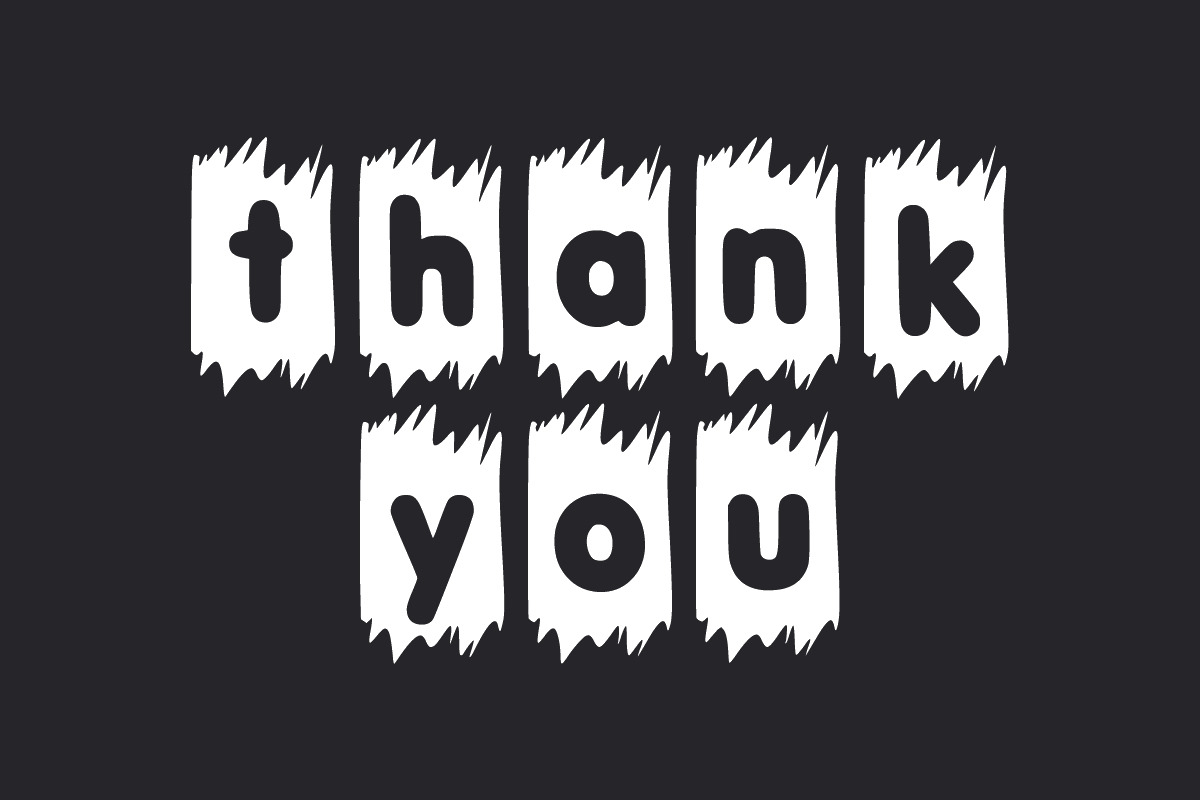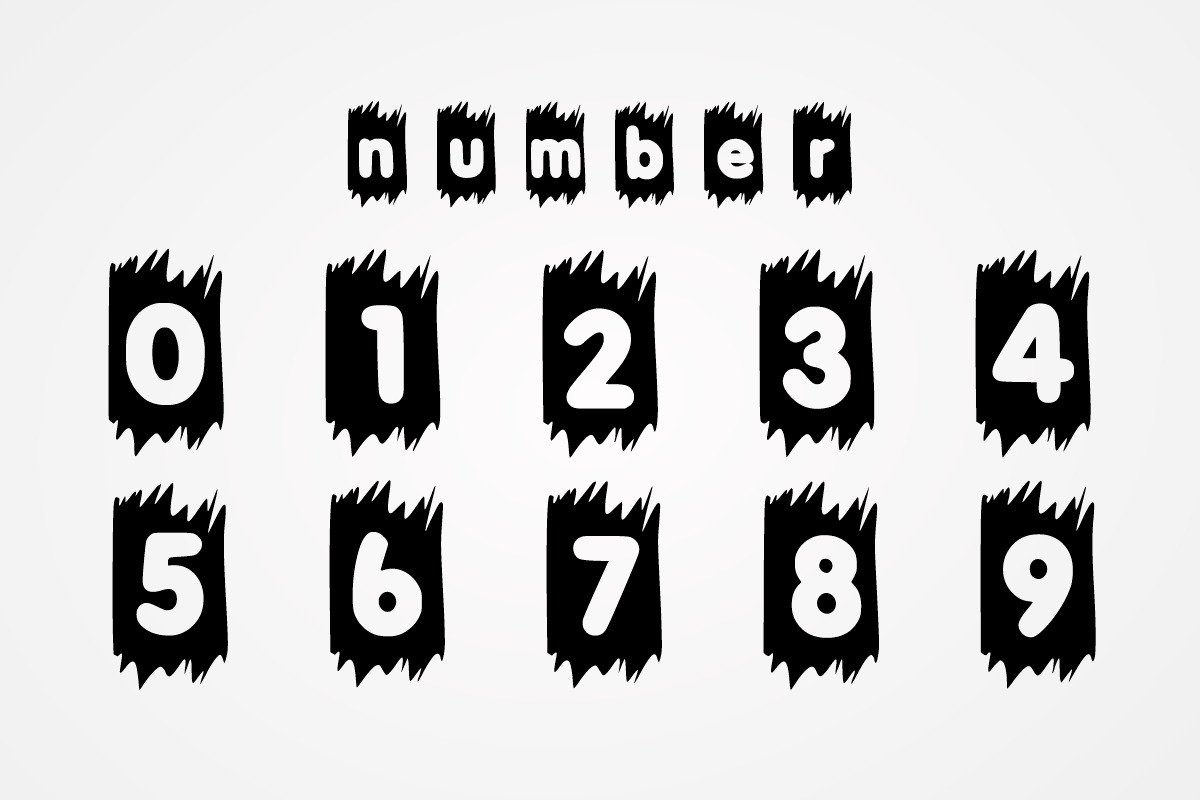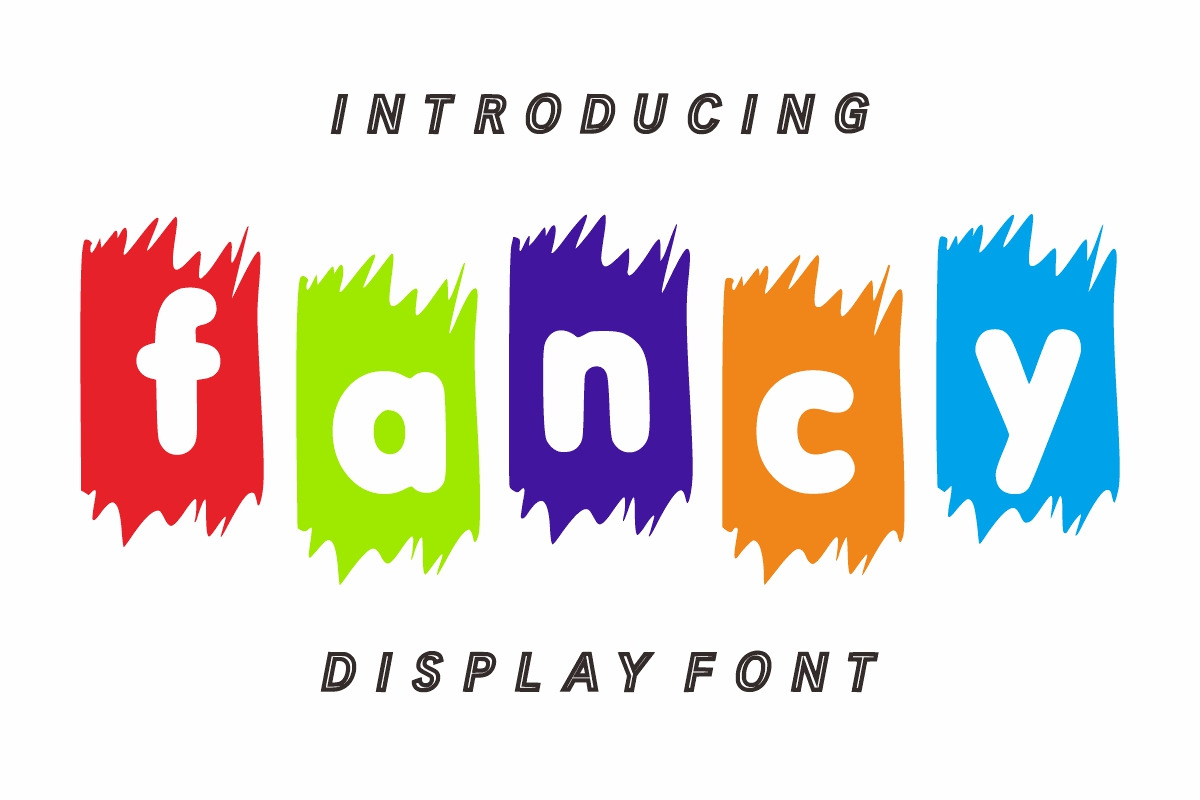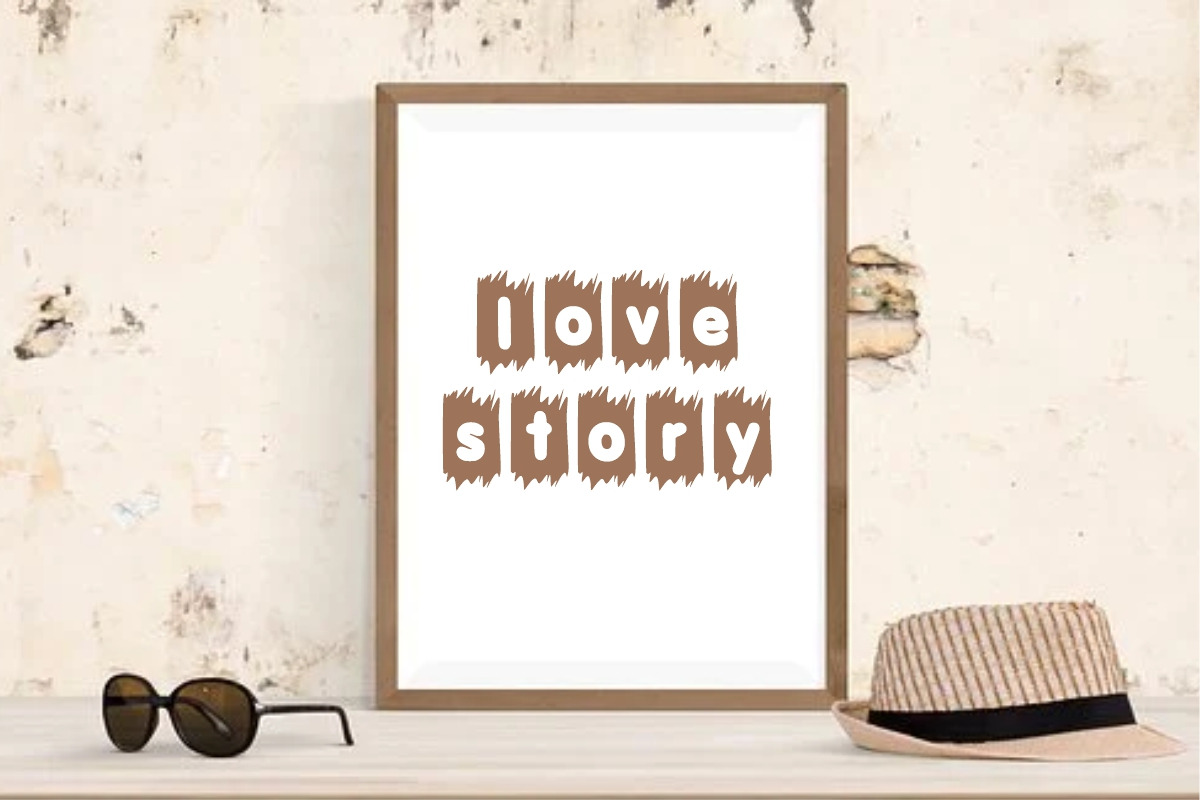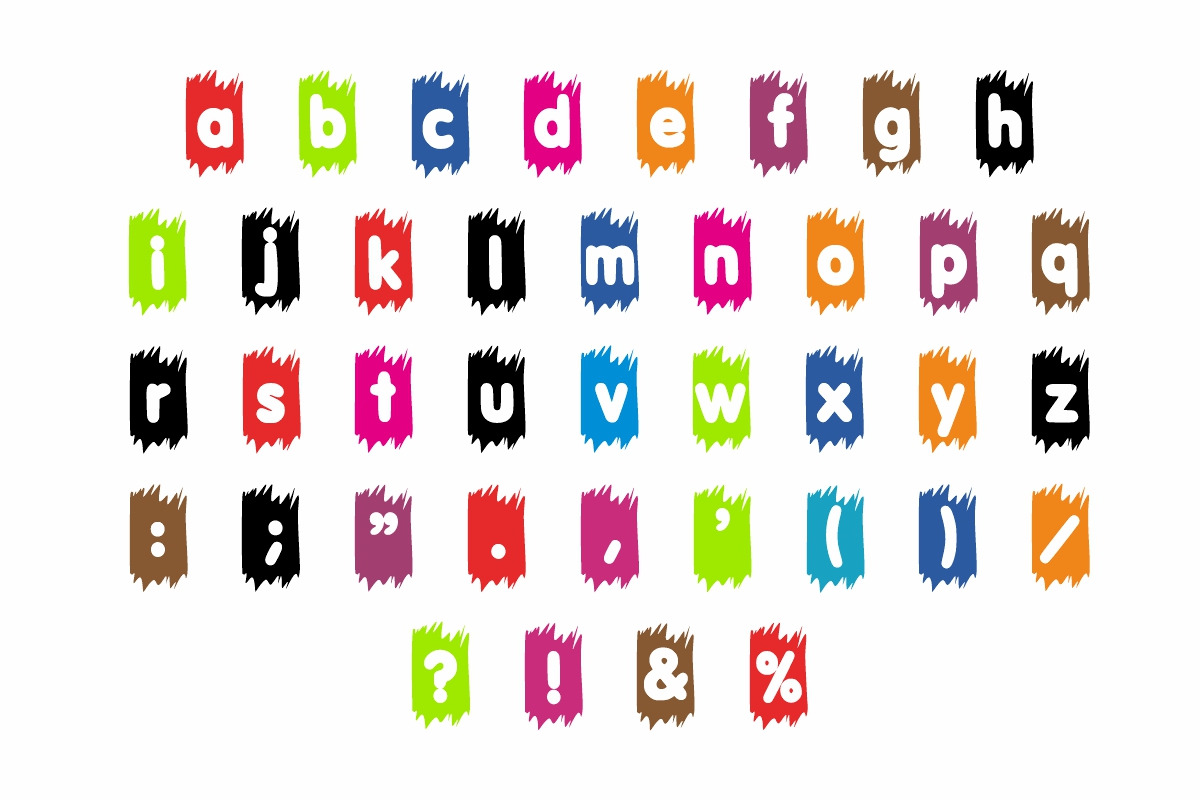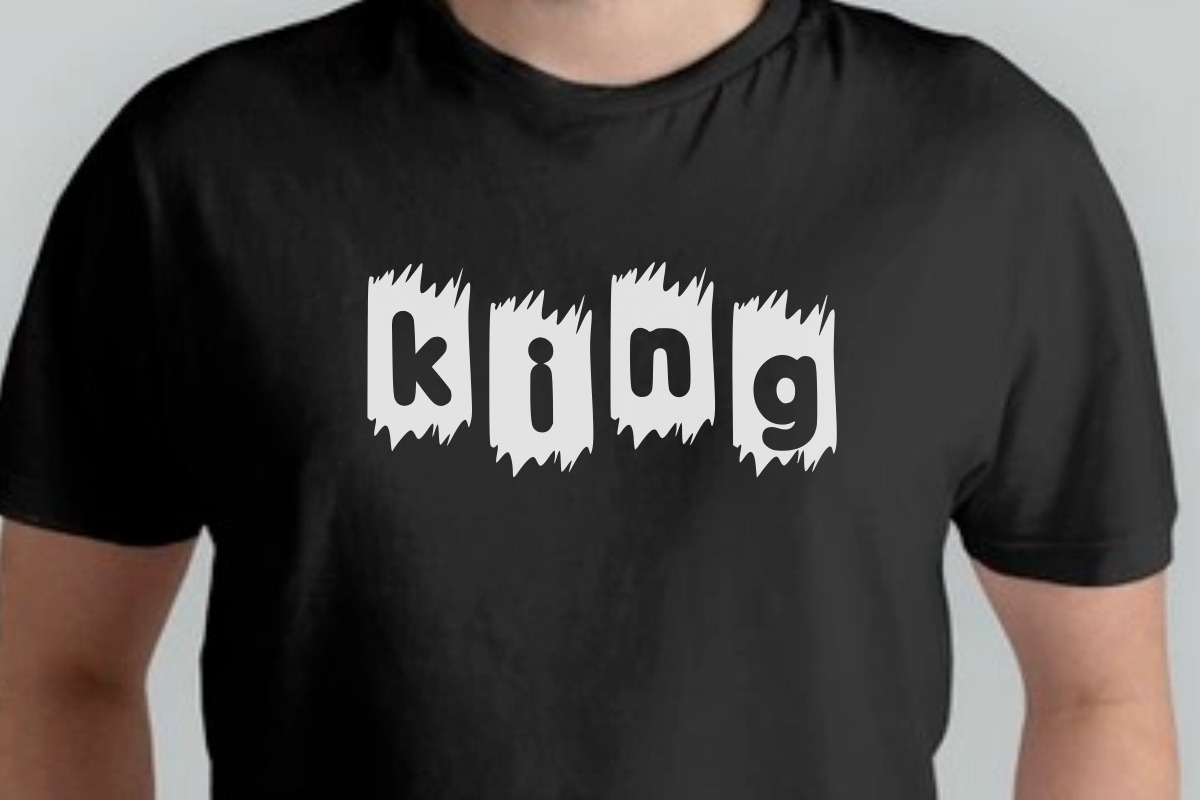
Fancy
fancy is a cool and fun decorative font. Add it to each of your promotions, price tags, party invitations, gatherings, or pretty much any design that requires a touch of youth and joy.